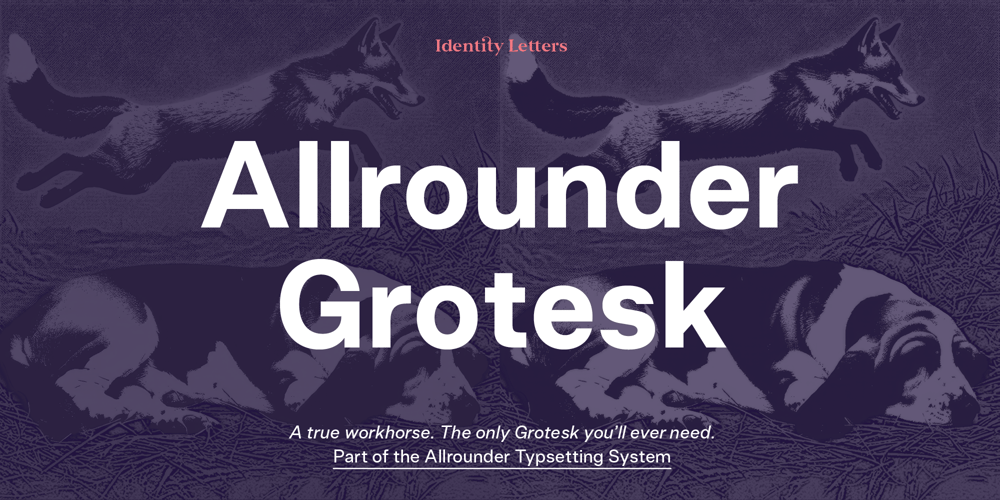
Allrounder Grotesk Font Family was designed by Moritz Kleinsorge and published by Identity Letters. Allrounder Grotesk contains 20 styles and family package options. Allrounder Grotesk is a neutral, powerful neogrotesk from the Allrounder superfamily. An unobtrusive teamplayer as well as an excellent soloist, this workhorse is ready for anything from even body text to crisp and clean headlines—in annual reports, editorial design, books, branding, packaging, large-scale ads, forms, or posters.Allrounder Grotesk consists of ten weights ranging from Air to Black with 900+ glyphs each and hand-corrected obliques. Its vertical metrics and texture match those of the other Allrounder typefaces: Combining fonts was never easier than with the Allrounder type system.(i) Allrounder Grotesk was heavily updated in 2024. v2.0 is not compatible with older versions.